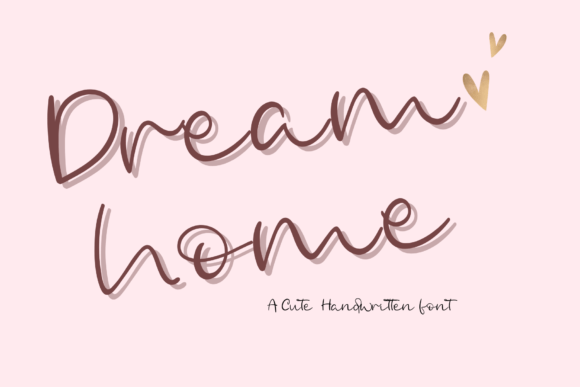
Introducing Dream Home Font, the Exquisite Script to Enchant Your Designs
In a world brimming with digital expressions, your designs yearn for a touch of heartfelt elegance, a voice that whispers warmth and invites the reader into an embrace of creativity. Dream Home Font, a captivating script creation from the ingenious minds at nstudio design, is not just a font; it's an artistic journey waiting to unfold.
With its graceful curves and enchanting strokes, Dream Home Font captivates the viewer from the first glance. Each letter, meticulously crafted, exudes an air of sophistication, a touch of whimsy, and an undeniable charm that makes your designs sing. This font is more than a collection of characters; it's an expression of art, a reflection of your unique style, and a key to unlocking a world of design possibilities.
Whether you're a seasoned designer seeking inspiration or a creative soul embarking on a new project, Dream Home Font is your steadfast companion, ready to add a touch of magic to your creations. Whether it's a personal journal, a wedding invitation, a captivating logo, or a stunning poster, Dream Home Font transforms your words into works of art.
Your designs deserve a font that speaks to the heart, a font that adds a touch of soul to every project. Dream Home Font is that font, a font that captivates, enchants, and leaves an indelible mark on the minds of your audience. So why settle for the ordinary when you can embrace the extraordinary? Let Dream Home Font be your muse, your companion in creativity, and watch as your designs blossom into masterpieces.